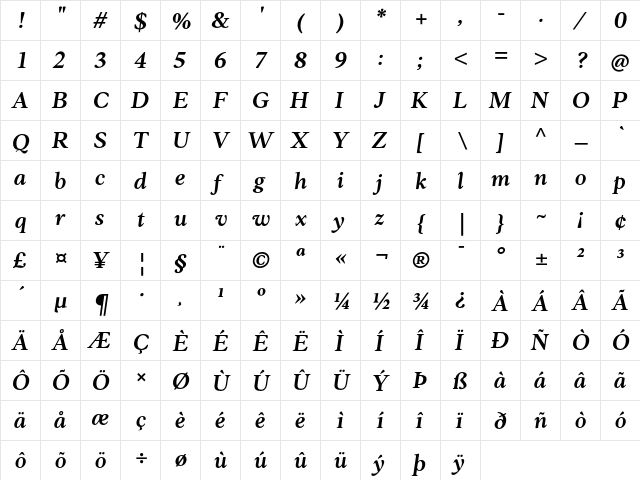
Anko Personal Use Semi Bold Italic
Design Context for Anko Personal Use Typeface
Anko Personal Use takes a measured approach to typography — its balanced proportions and neutral character make it a reliable workhorse for both digital and print work. Its italic angle brings a sense of urgency and motion to the letterforms. Its bold stroke weight gives it real presence on the page.
Pro Tip: Use Anko Personal Use for emphasis, pull quotes, and subheadings where its slanted energy can add rhythm to the layout.